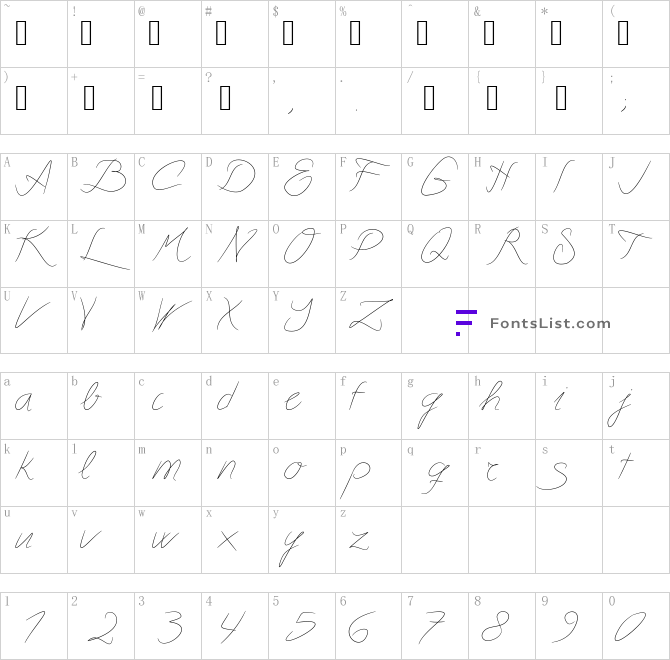
- Font Name:Astralasia
Astralasia.ttf is a very beautiful artistic font, Astralasia.ttf is widely used in the design and printing of various books and pictures,Astralasia.ttf has a strong visual impact,Astralasia.ttf is a commonly used font in newspapers, magazines and books, and is used in posters, e-commerce Poster design, store design, logo design, font design and other fields.Astralasia.